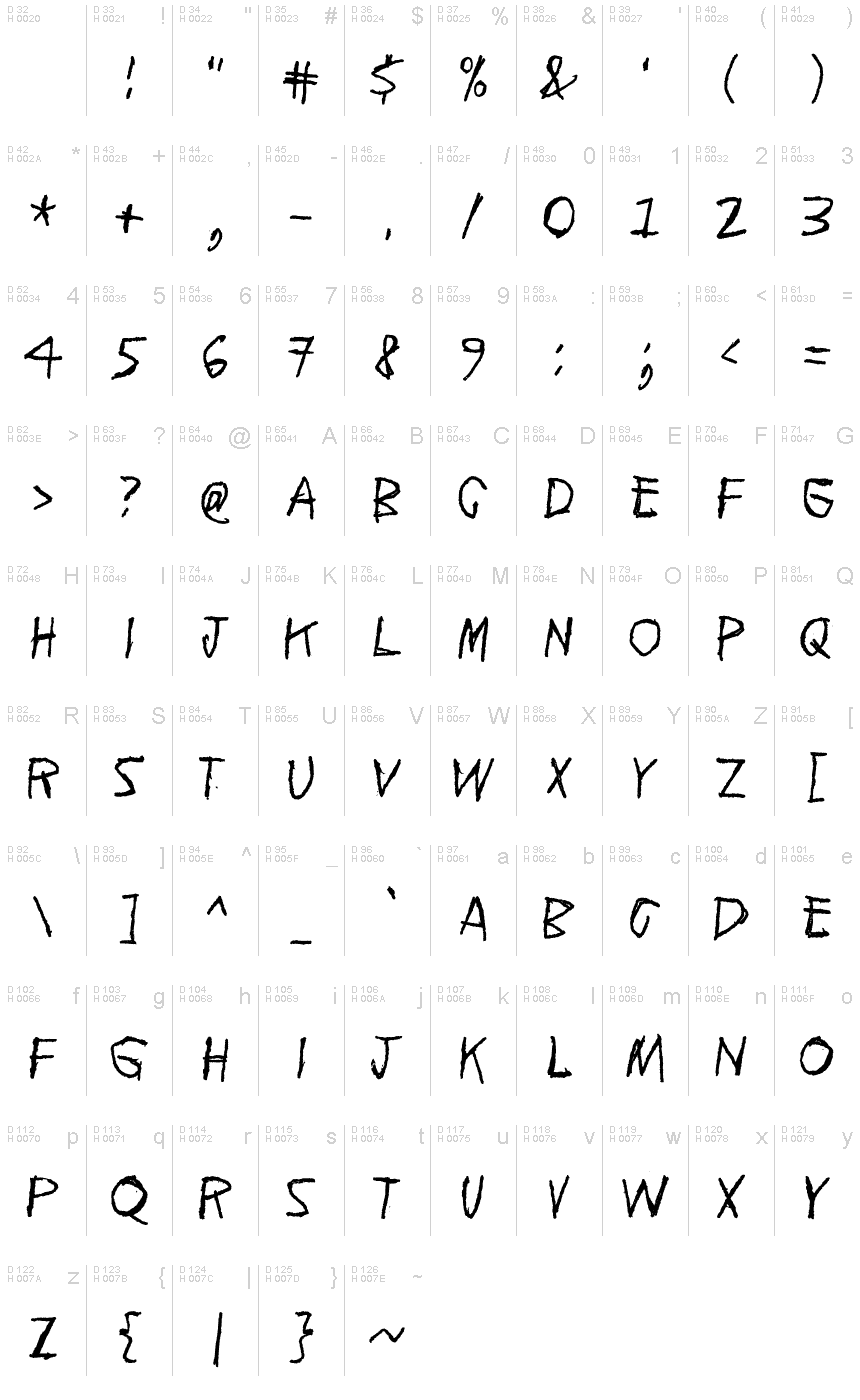
Who Are You is a light script font, designed by junkohanhero. It is a unique blend of trash and script styles, making it the perfect choice for any project looking for an edgy, modern vibe. From streetwear fashion to urban lifestyle artworks, this font will give your designs a stylish twist. Who Are You offers an expressive way to communicate through its bold yet playful lines. Let this font be your voice and make your ideas come alive!